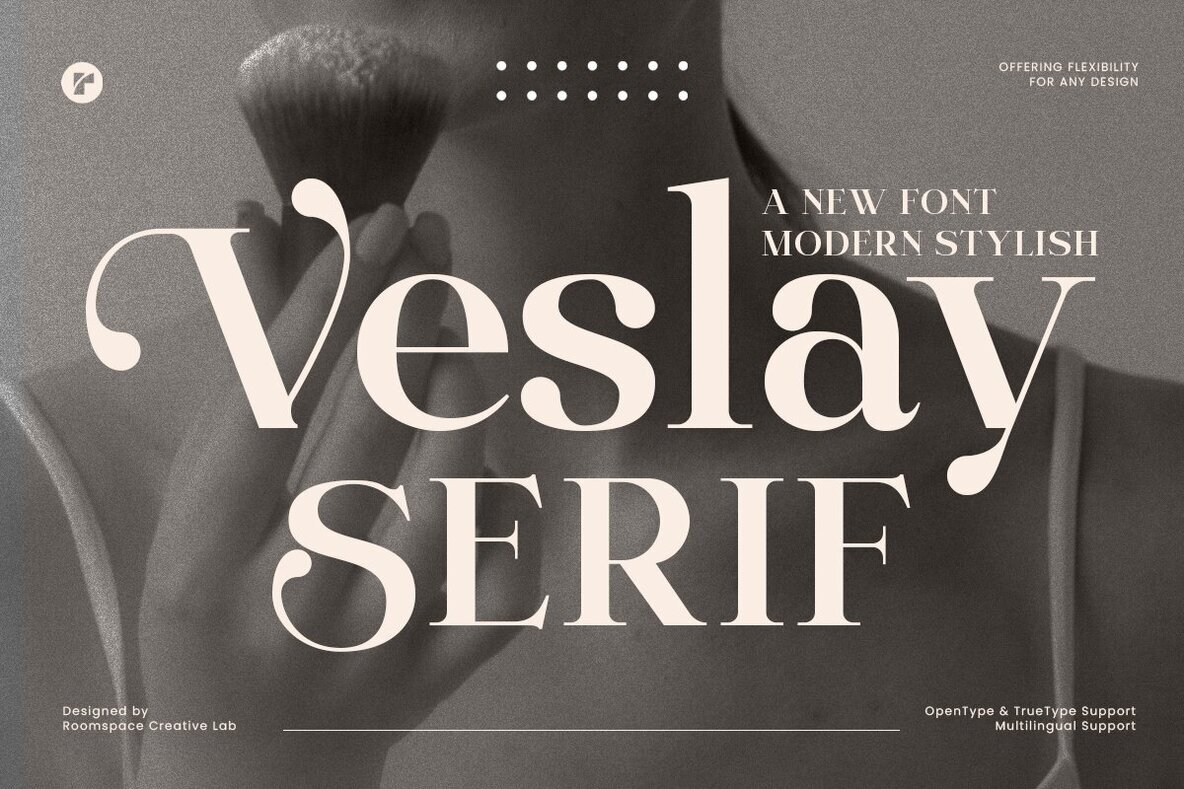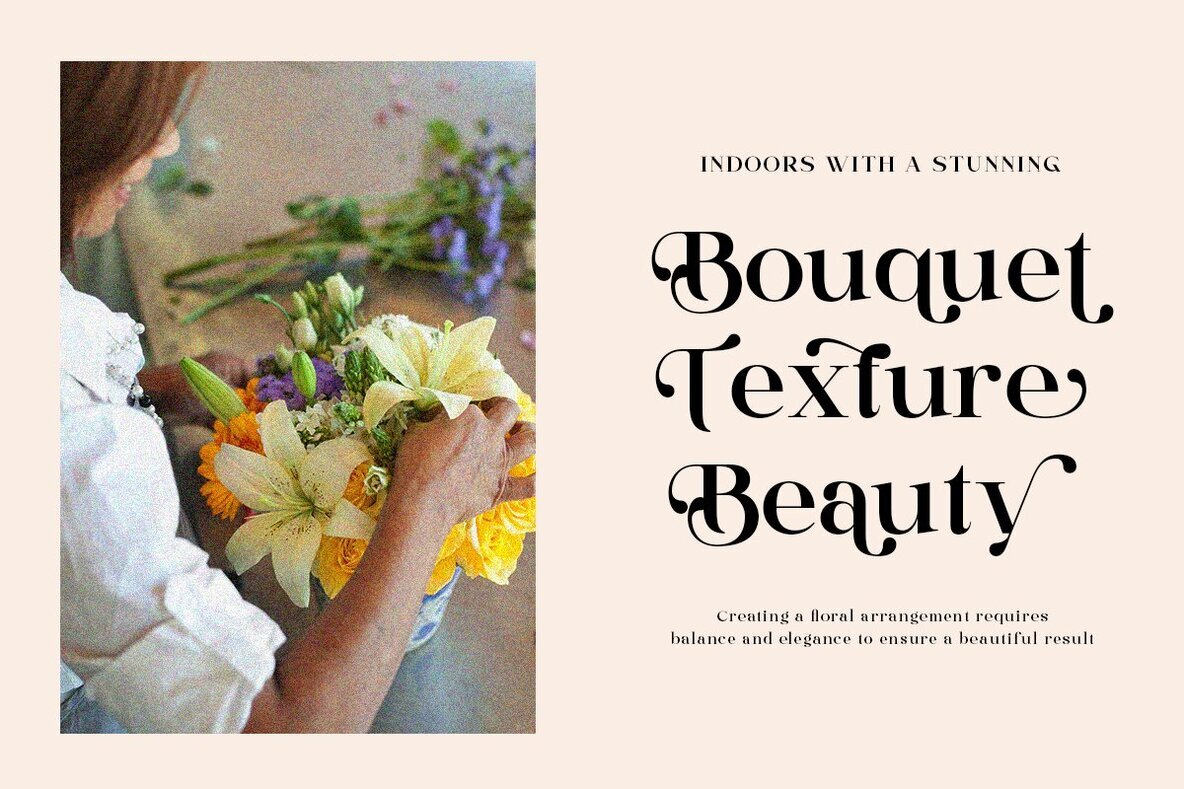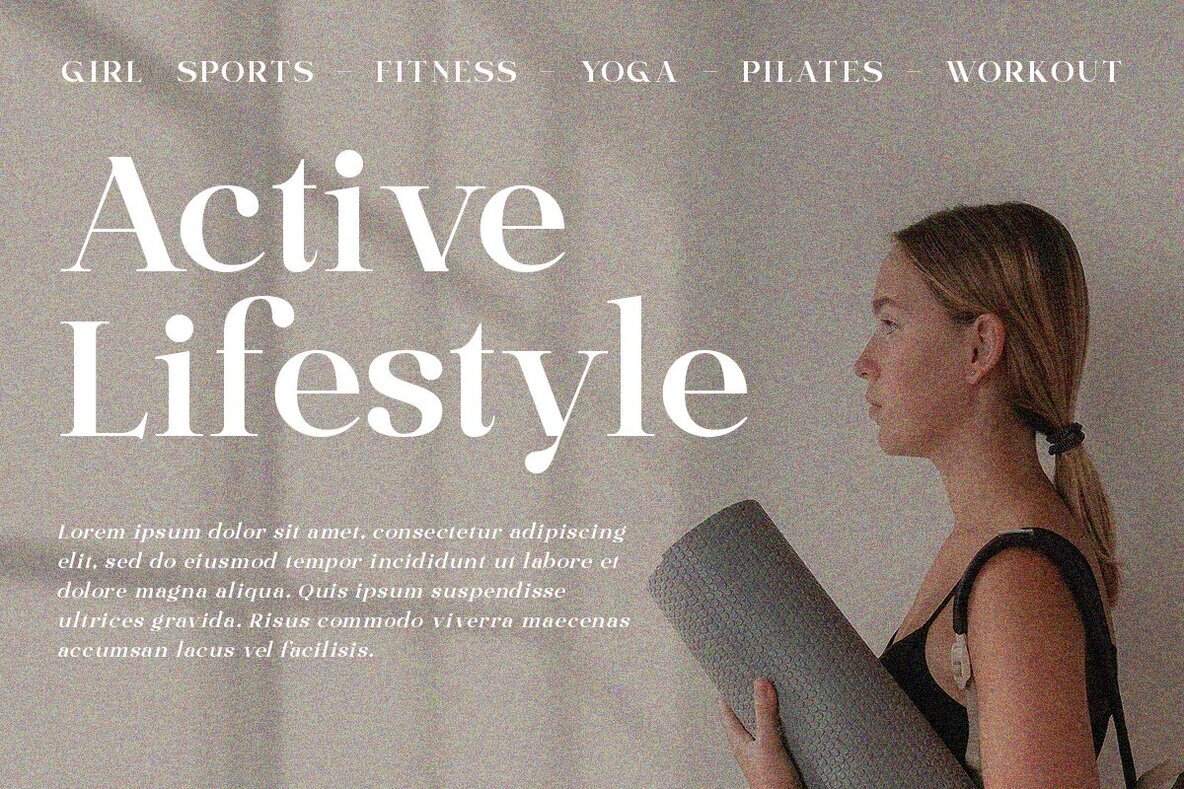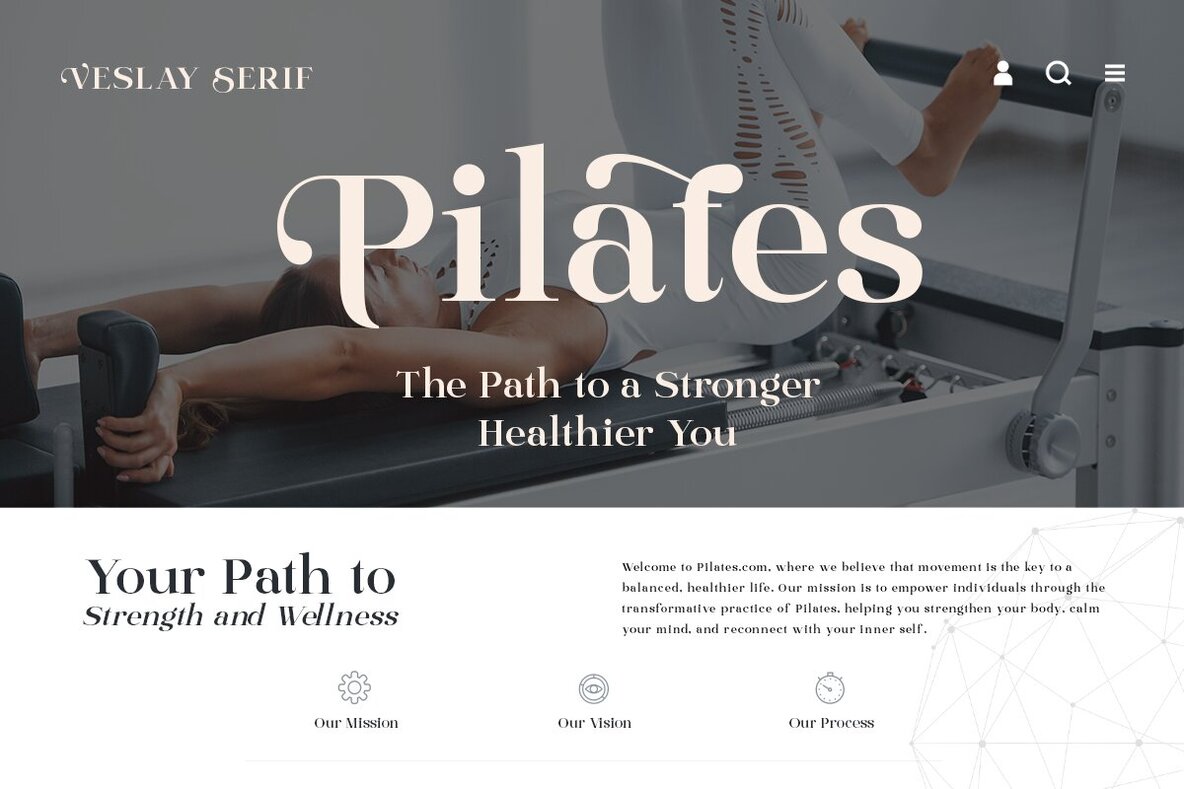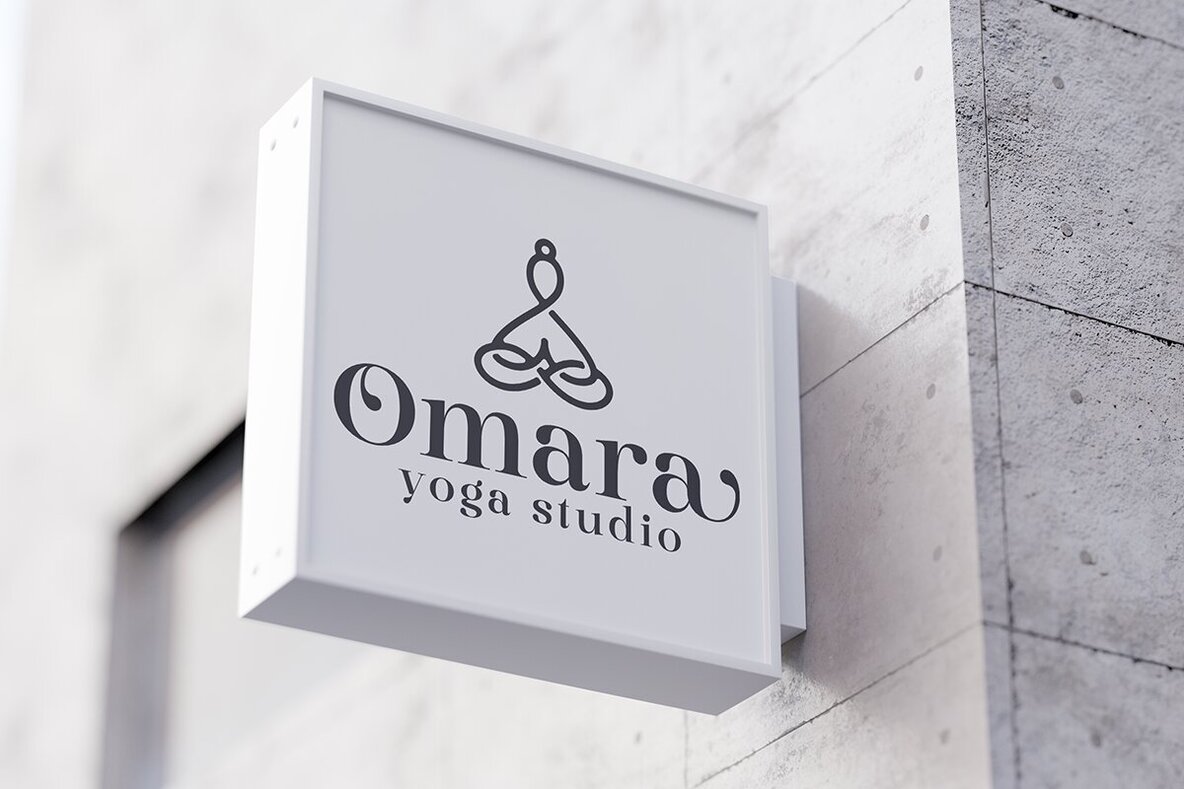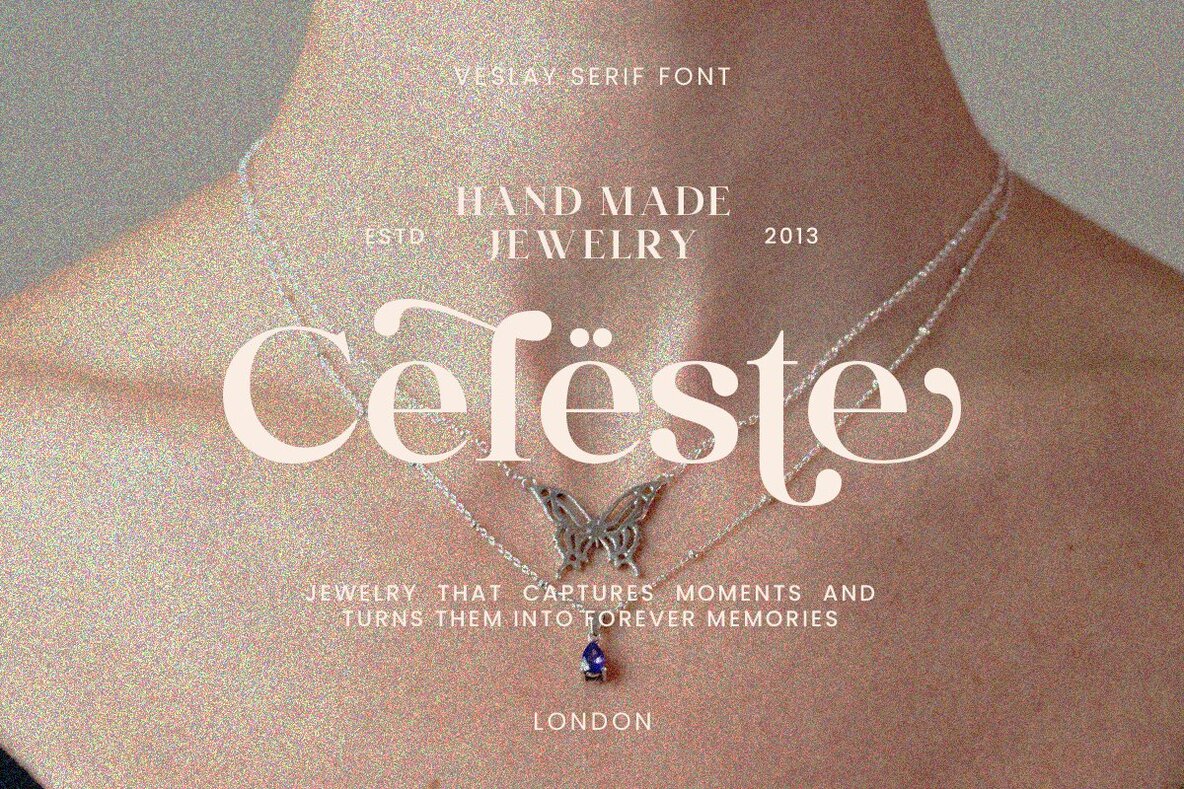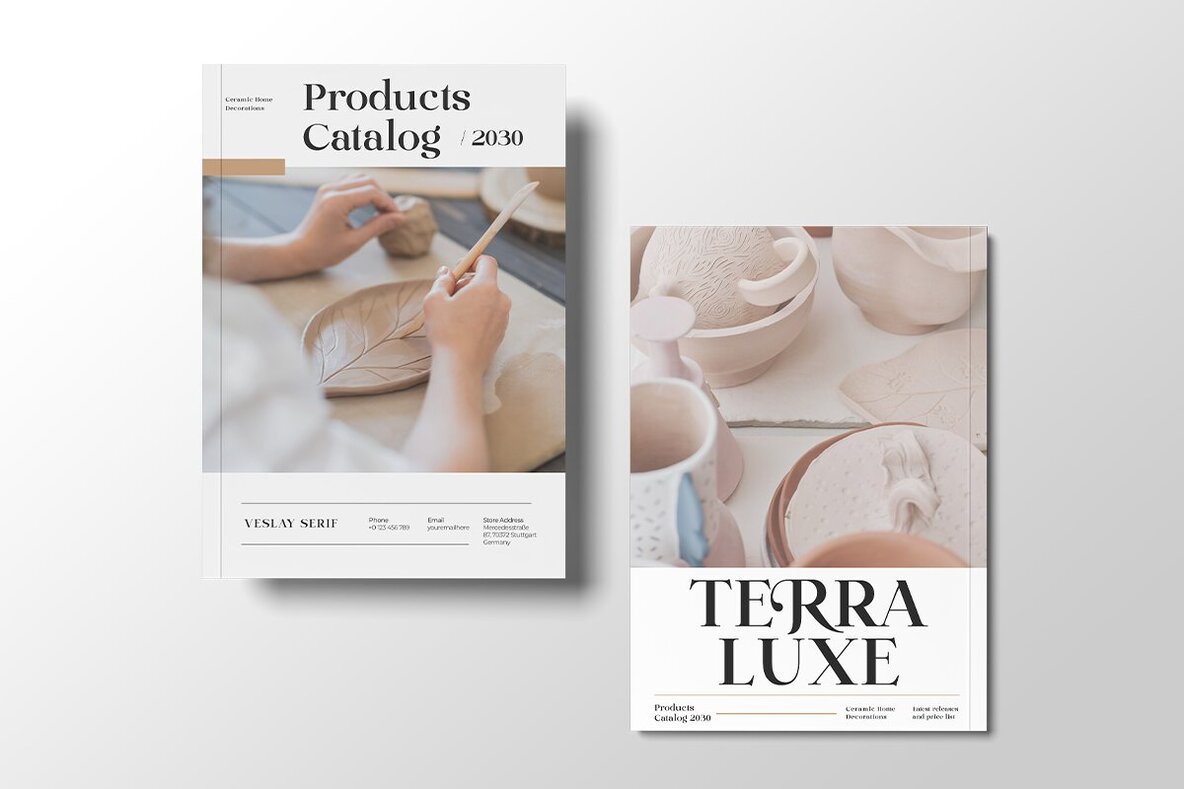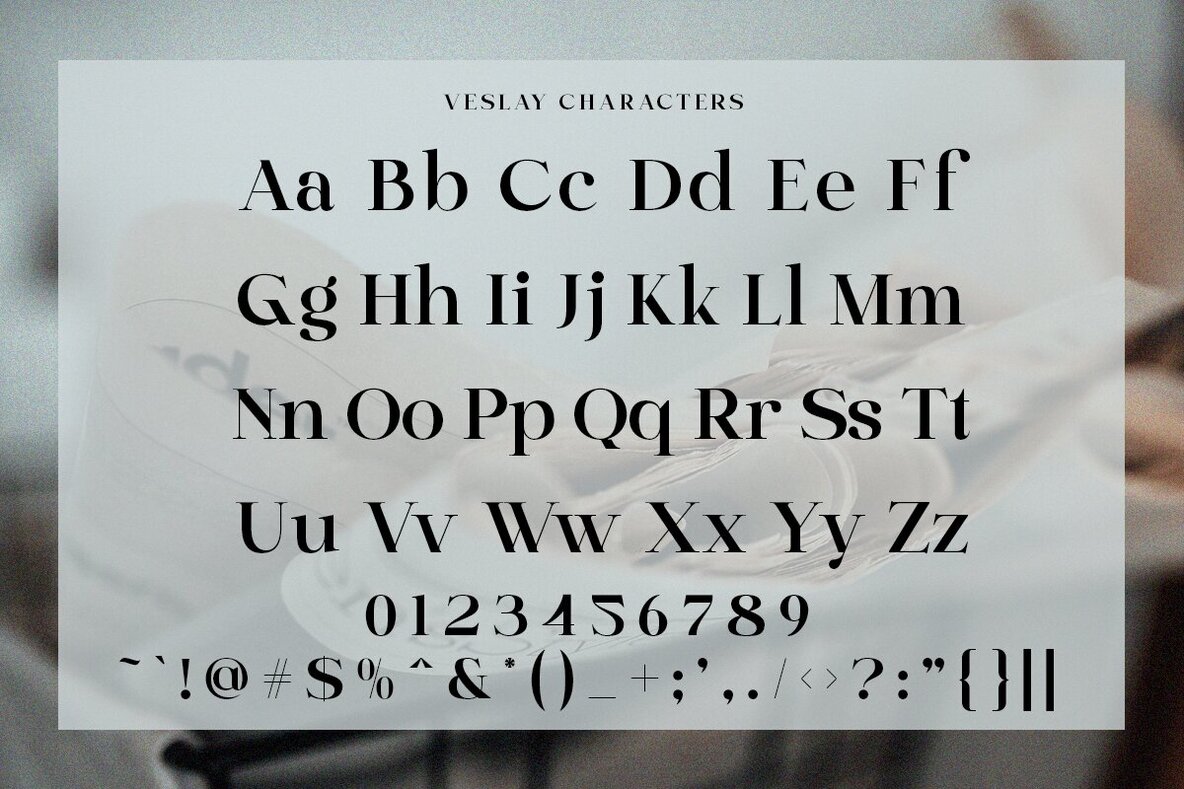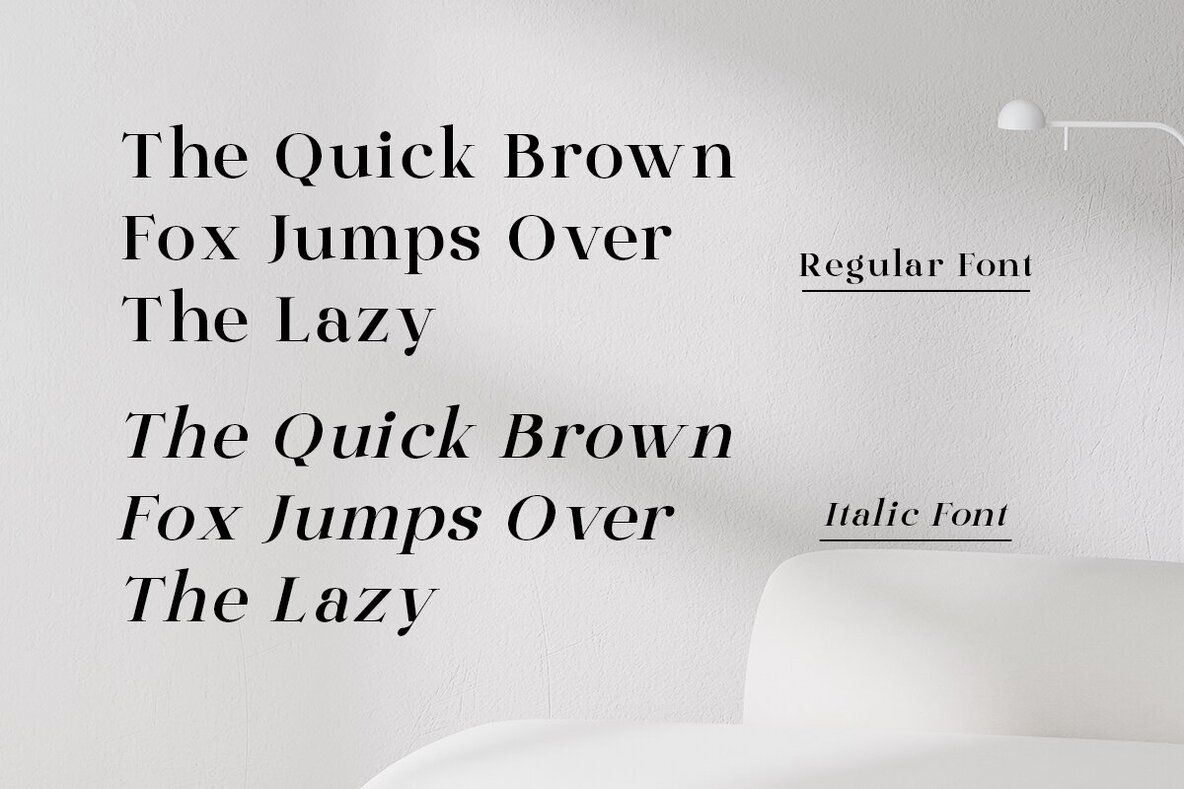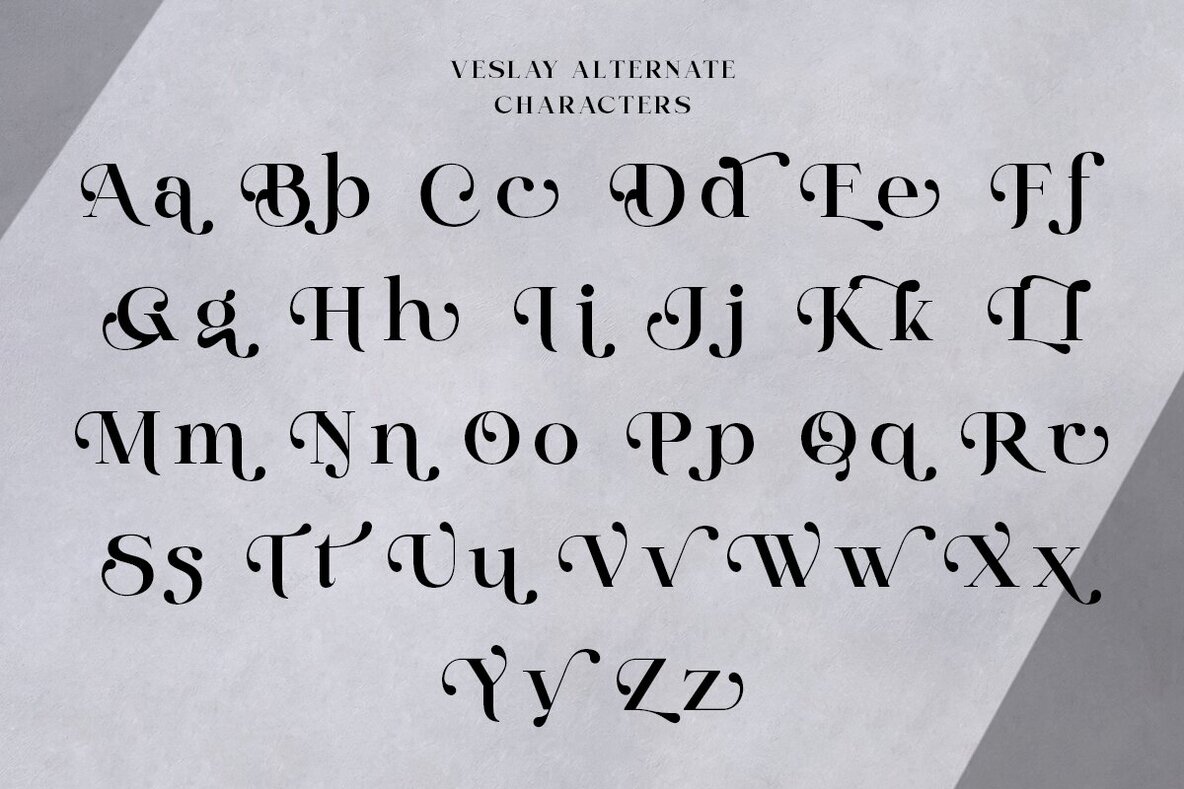
Veslay Font
Introducing the Vesley Serif Font, a versatile typeface blending the nostalgia of retro design with contemporary trends. Ideal for timeless logos, chic branding, and elegant editorial layouts, Vesley is tailored for designers, entrepreneurs, and creators who embrace boldness tempered with minimalism. Characterized by unique alternate characters and intricate swash/tail details, this font offers exceptional readability, making it perfect for fashion projects, wedding invitations, magazine layouts, and packaging designs.Veslay: A Perfect Fusion of Retro and Modern